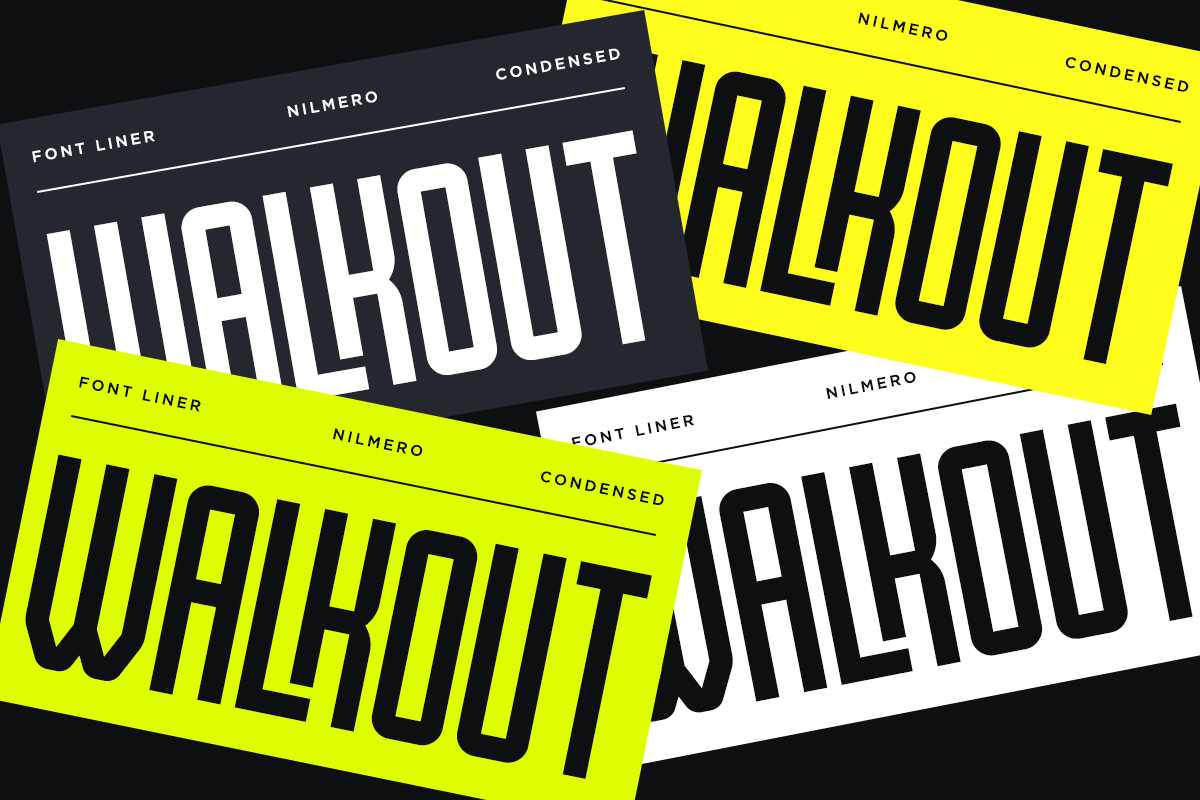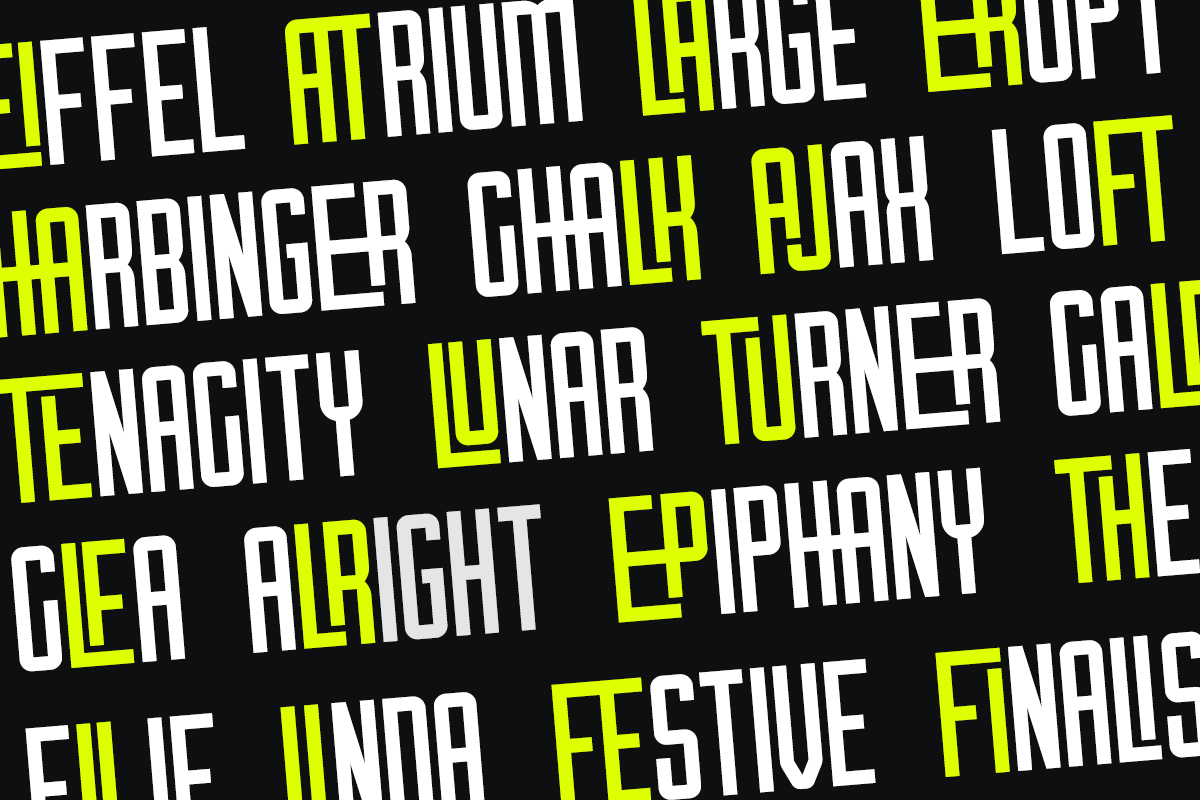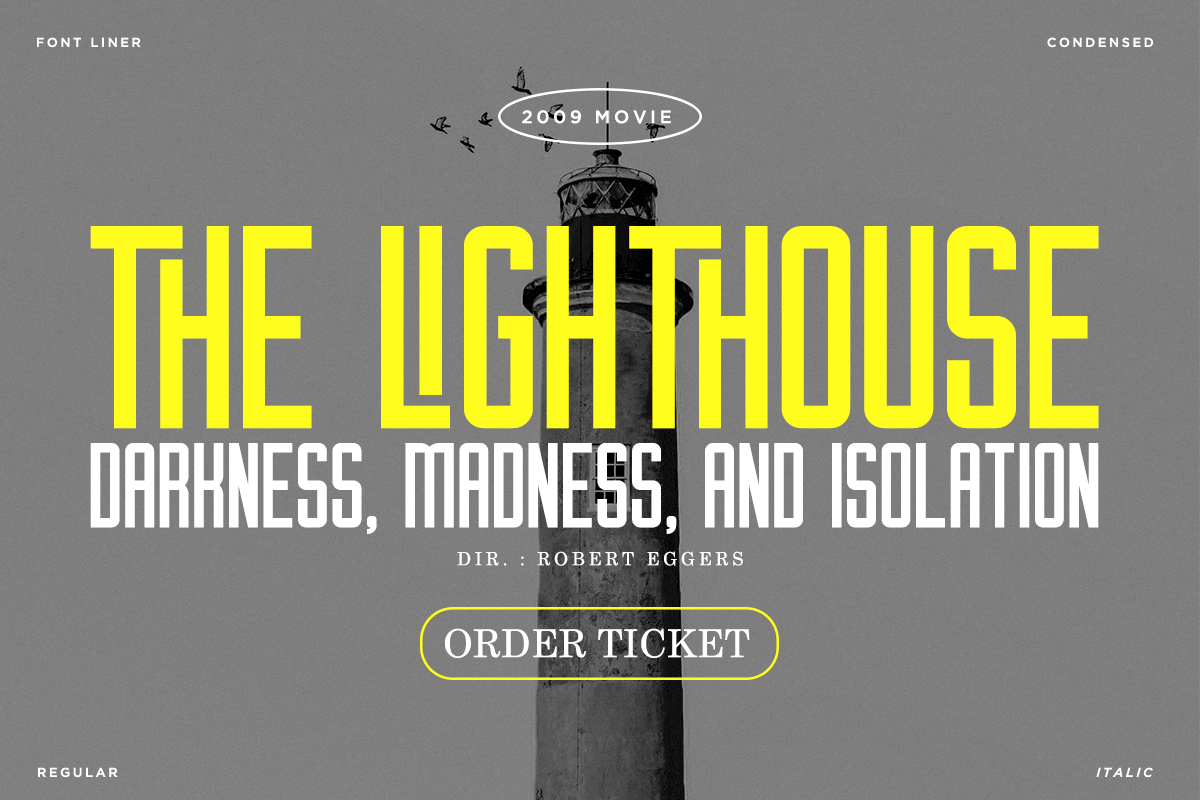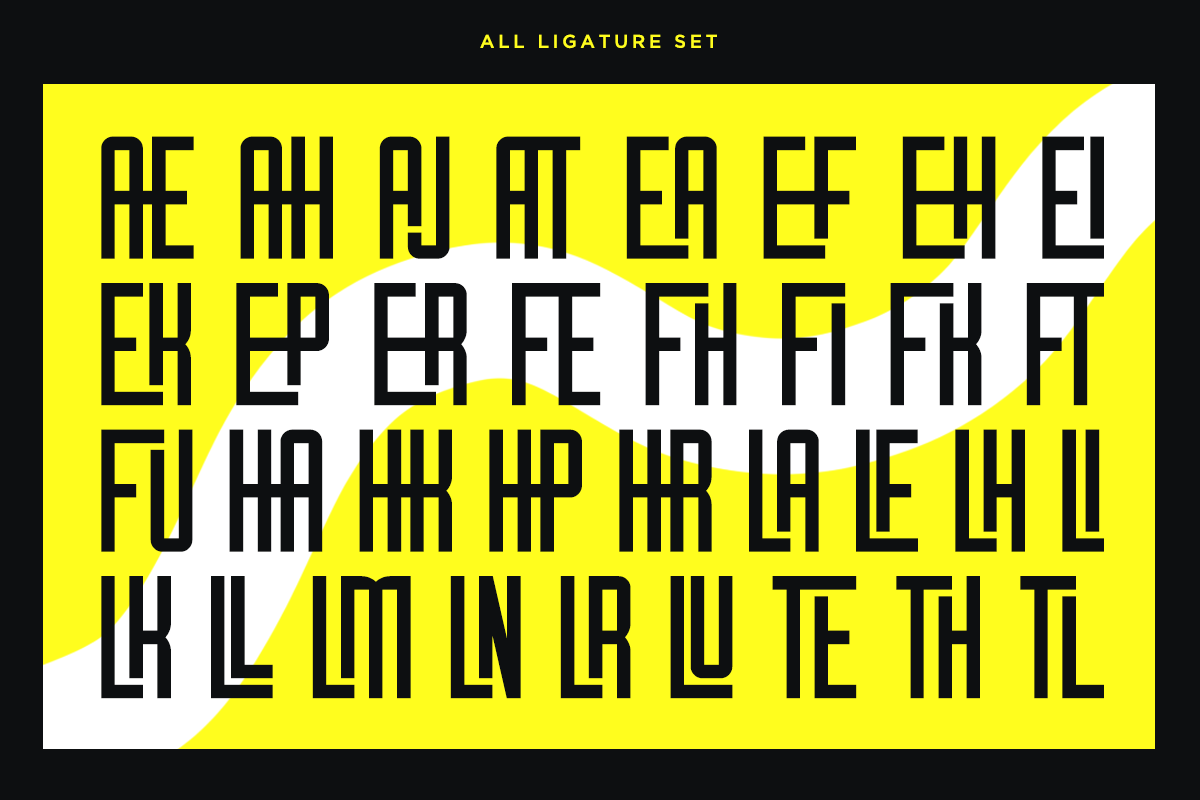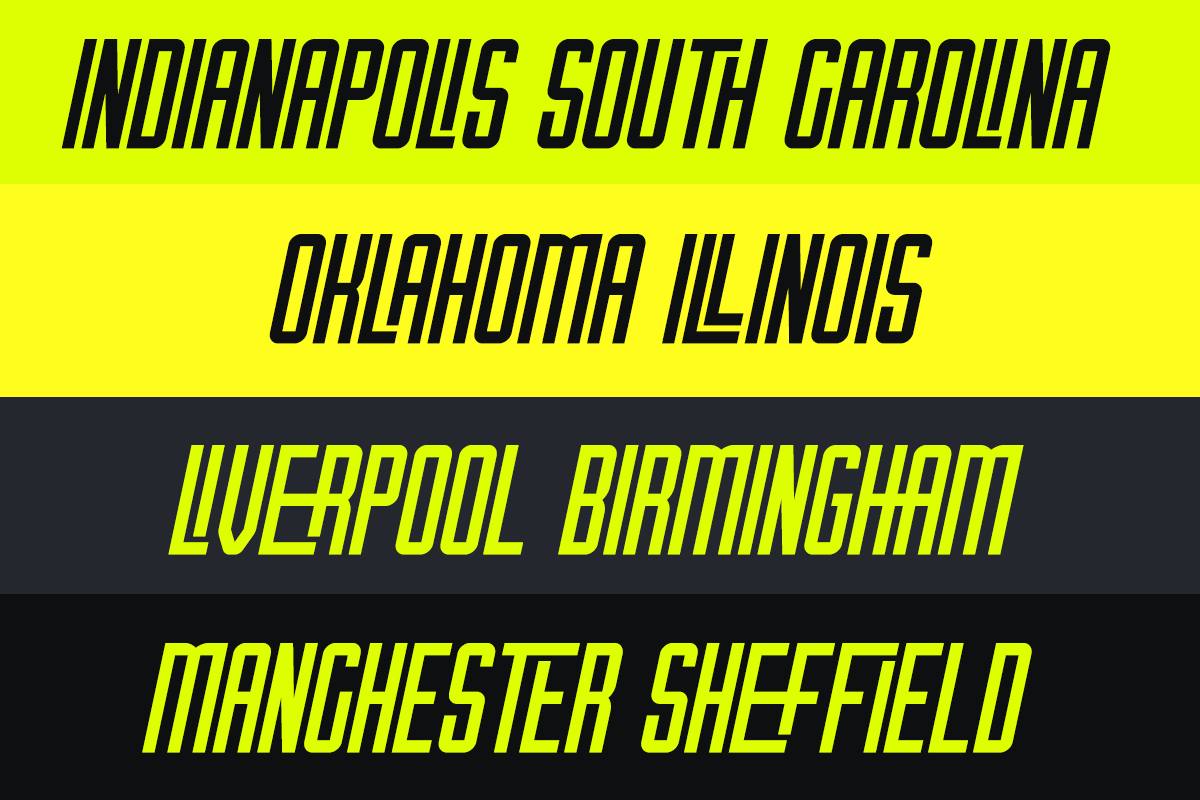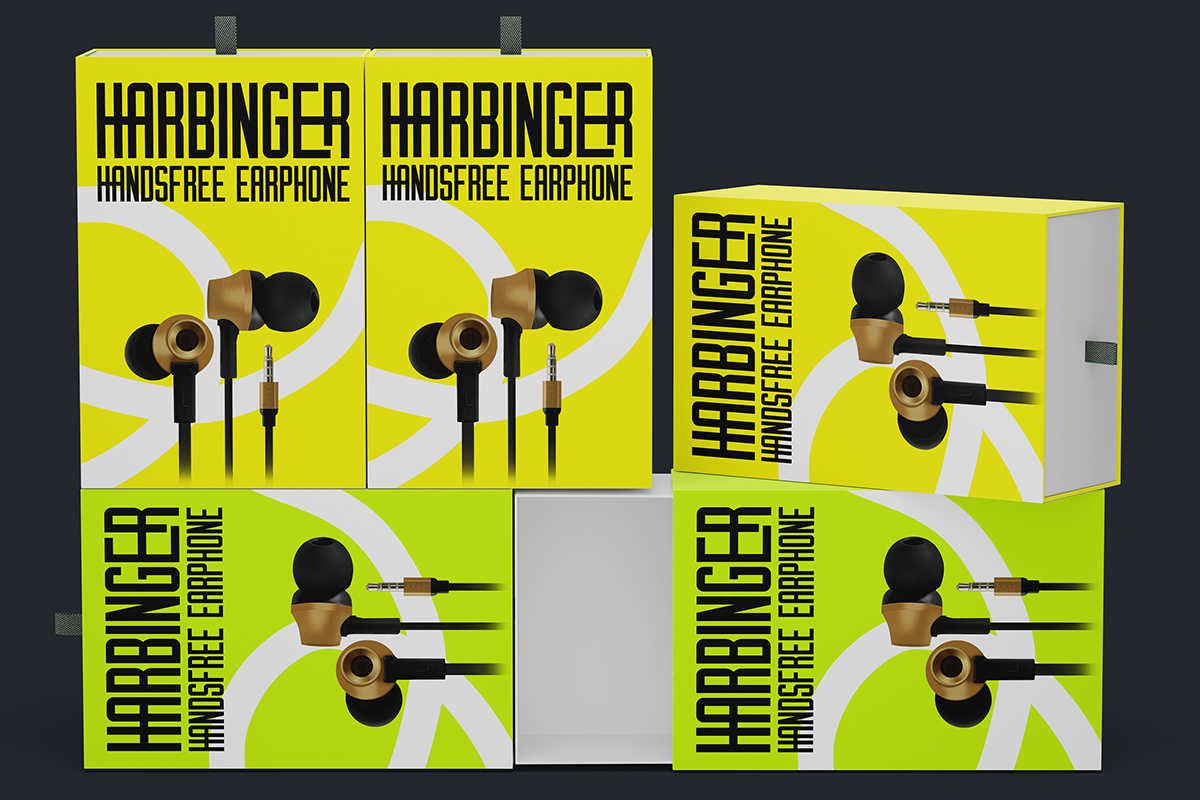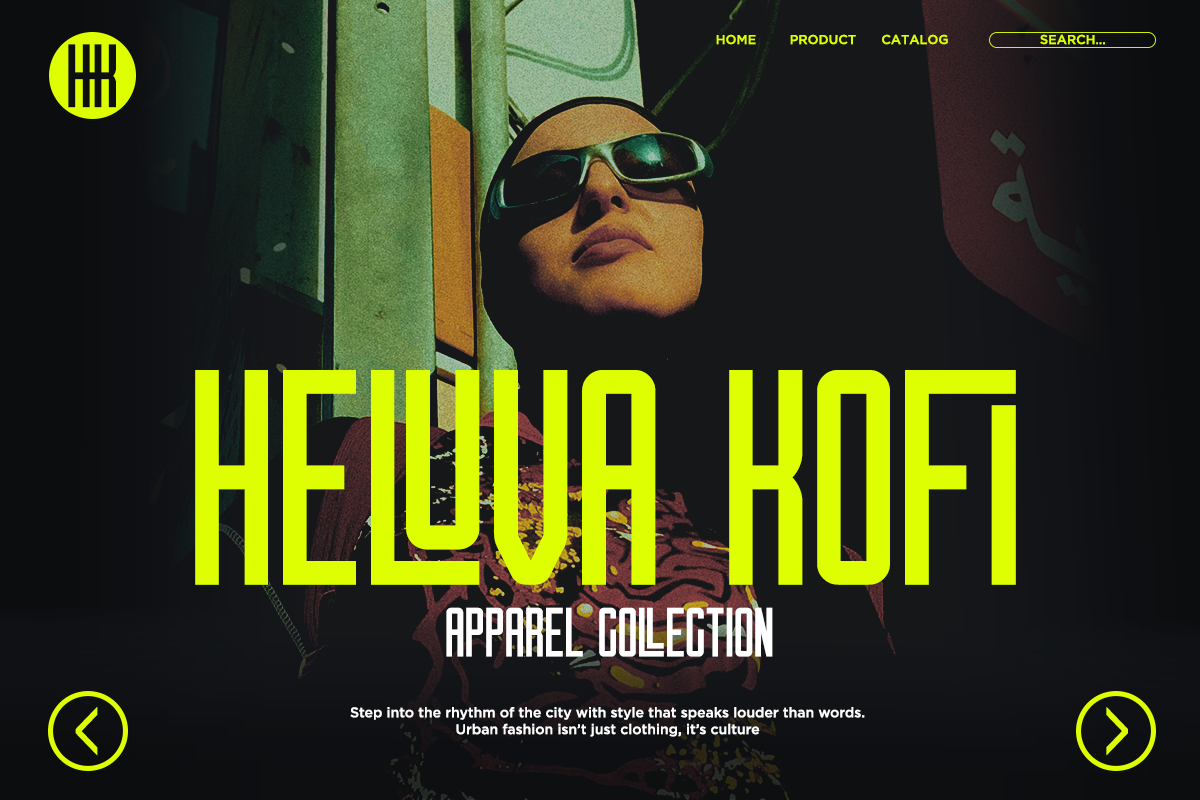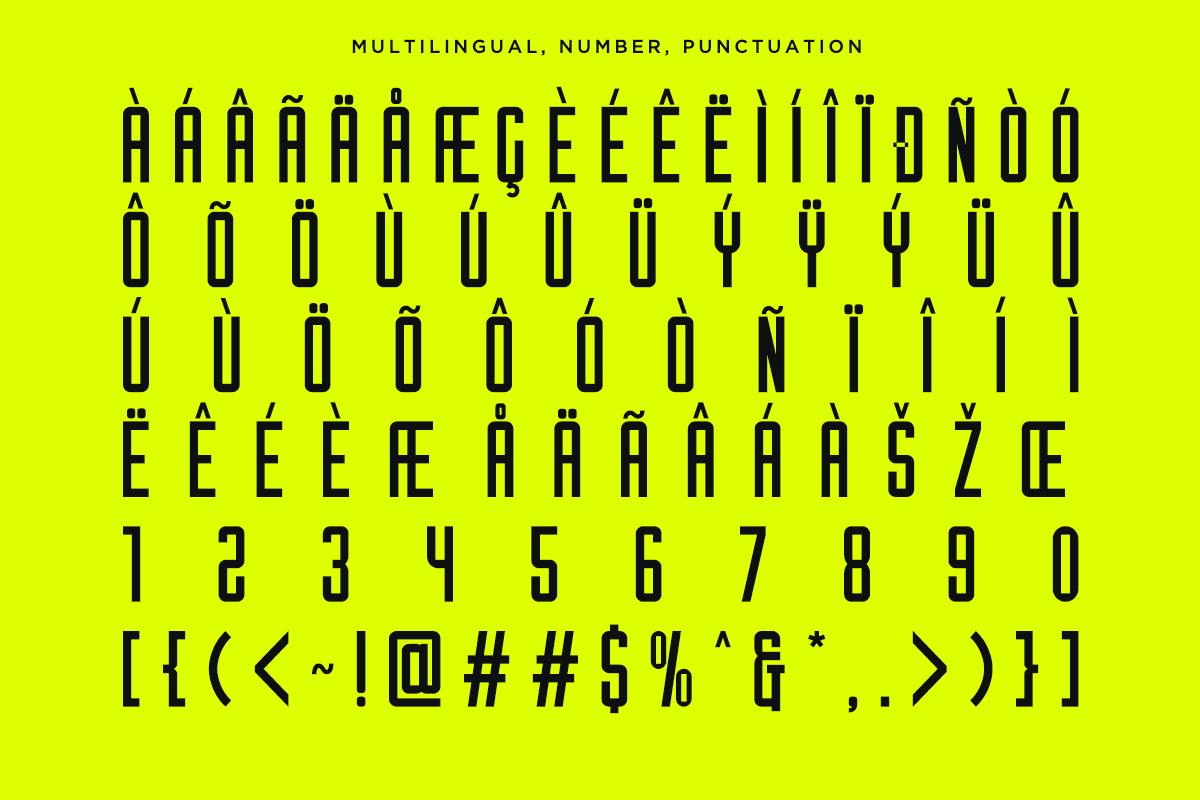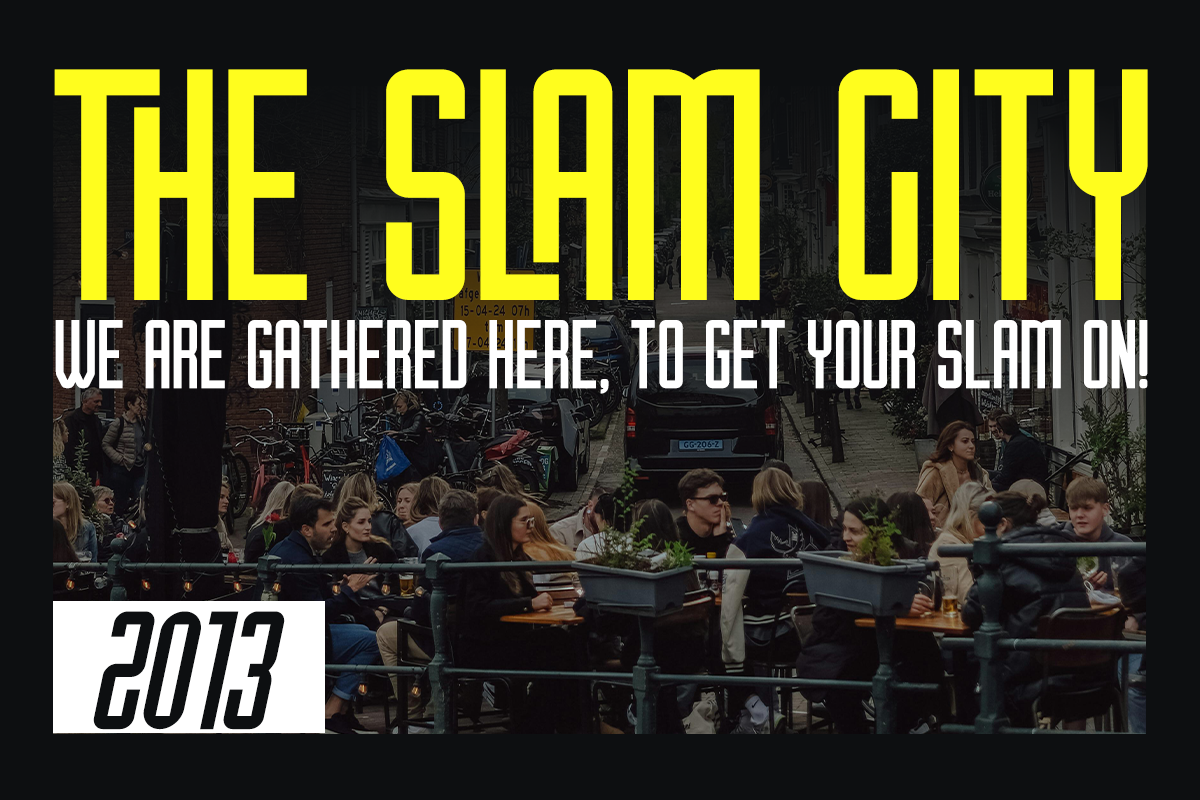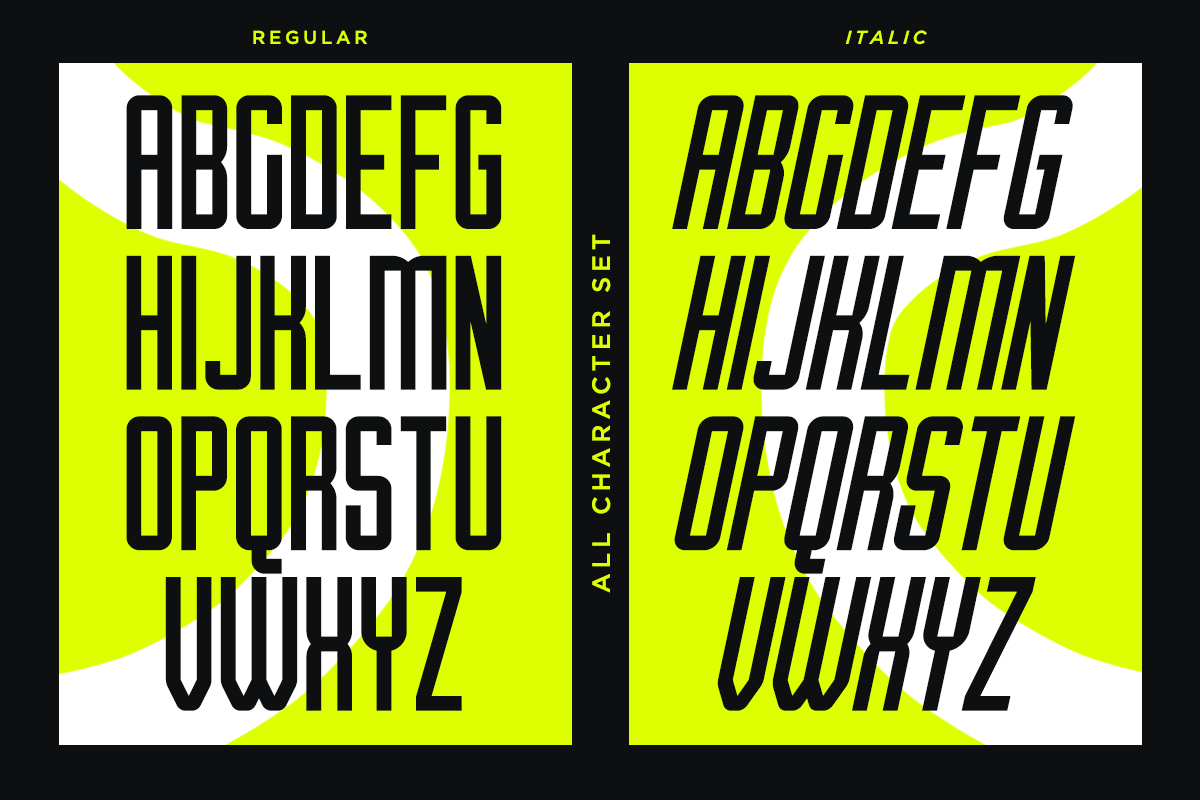
Nilmero - Modern Condensed Font
Nilmero is a modern condensed sans font that redefines typographic excellence. With its sleek and contemporary design, Nilmero is the epitome of elegance and functionality, enhanced by an extensive array of meticulously crafted ligatures. Nilmero is a versatile font suitable for a myriad of design applications, including editorial layouts, branding materials, advertising campaigns, and digital interfaces.